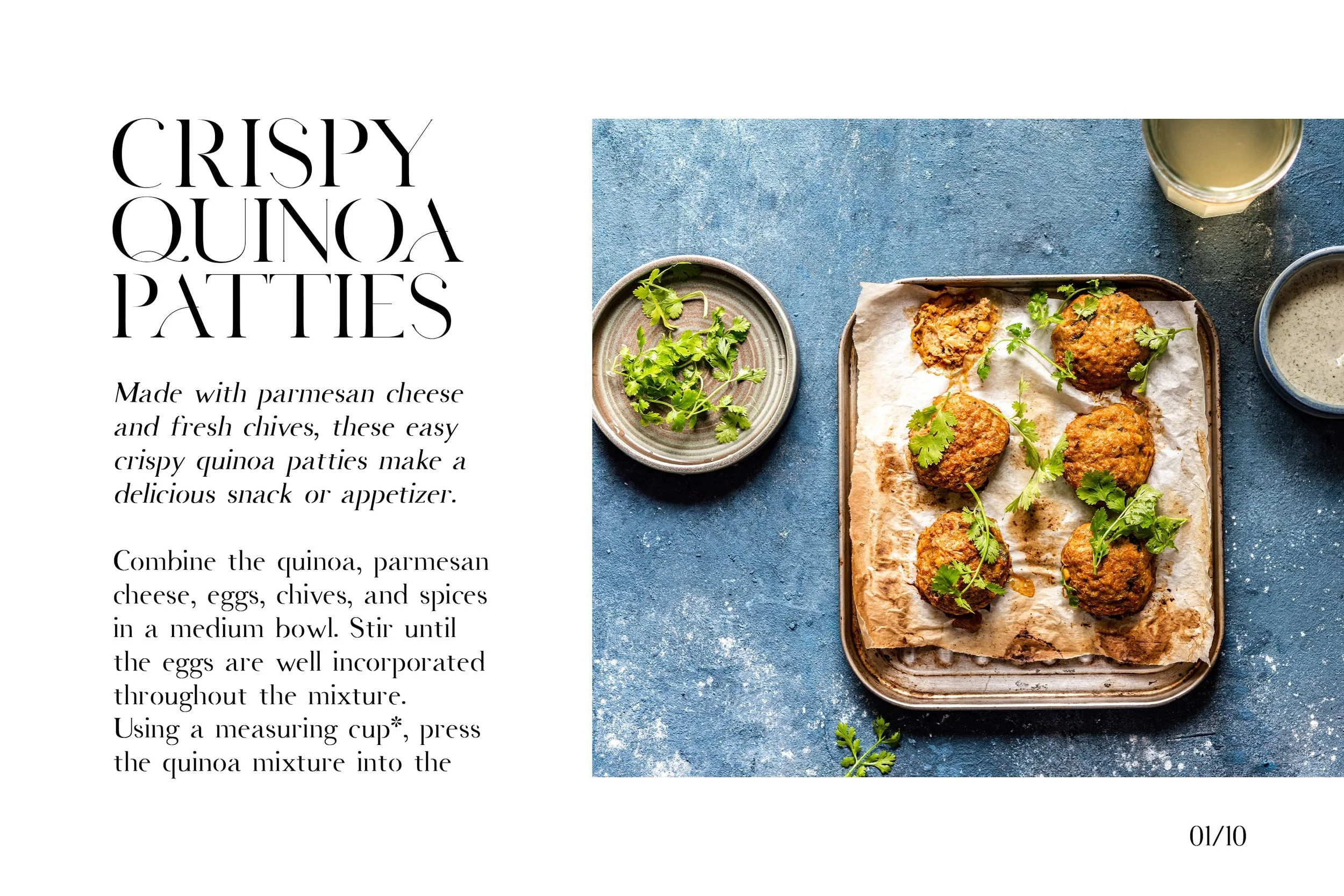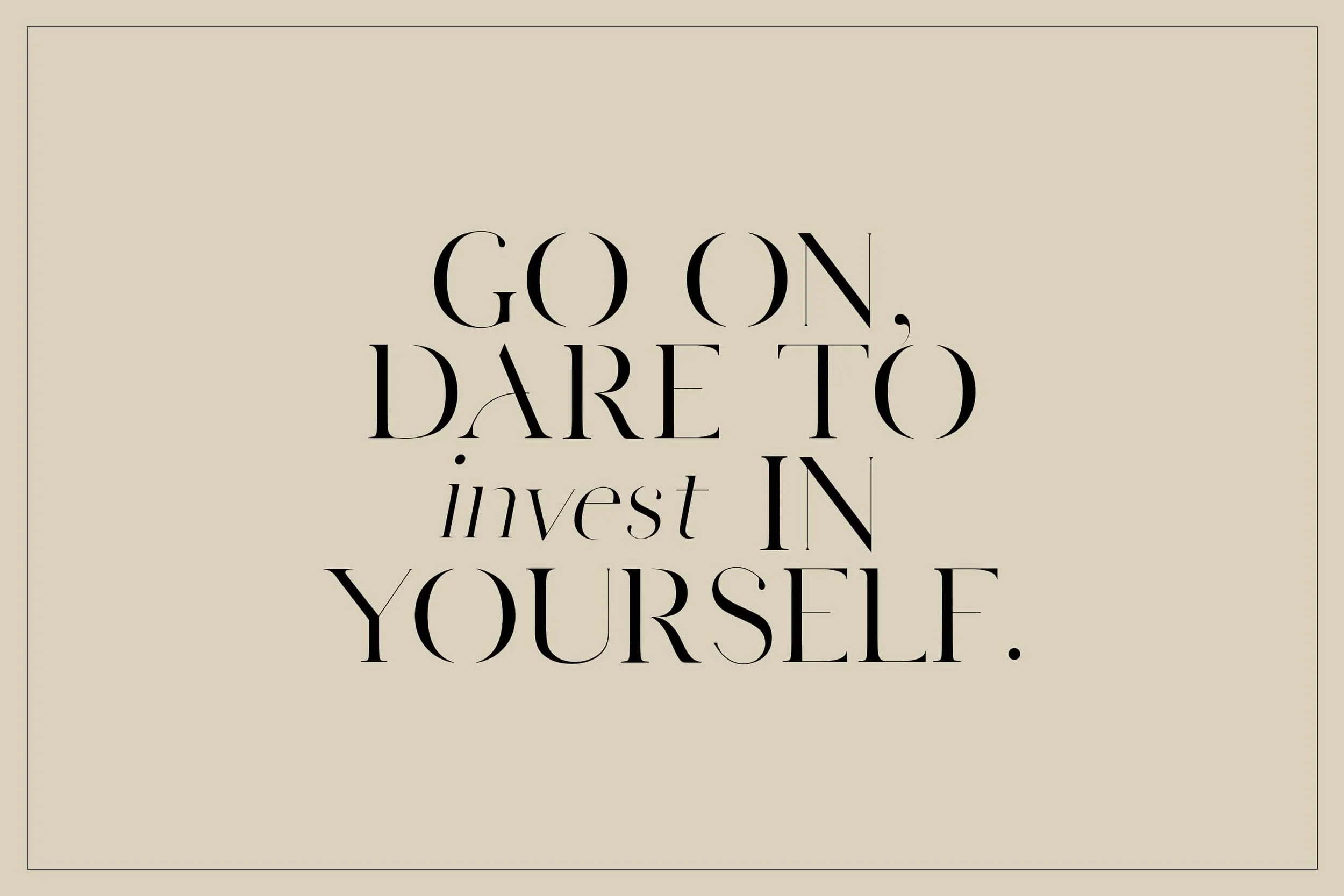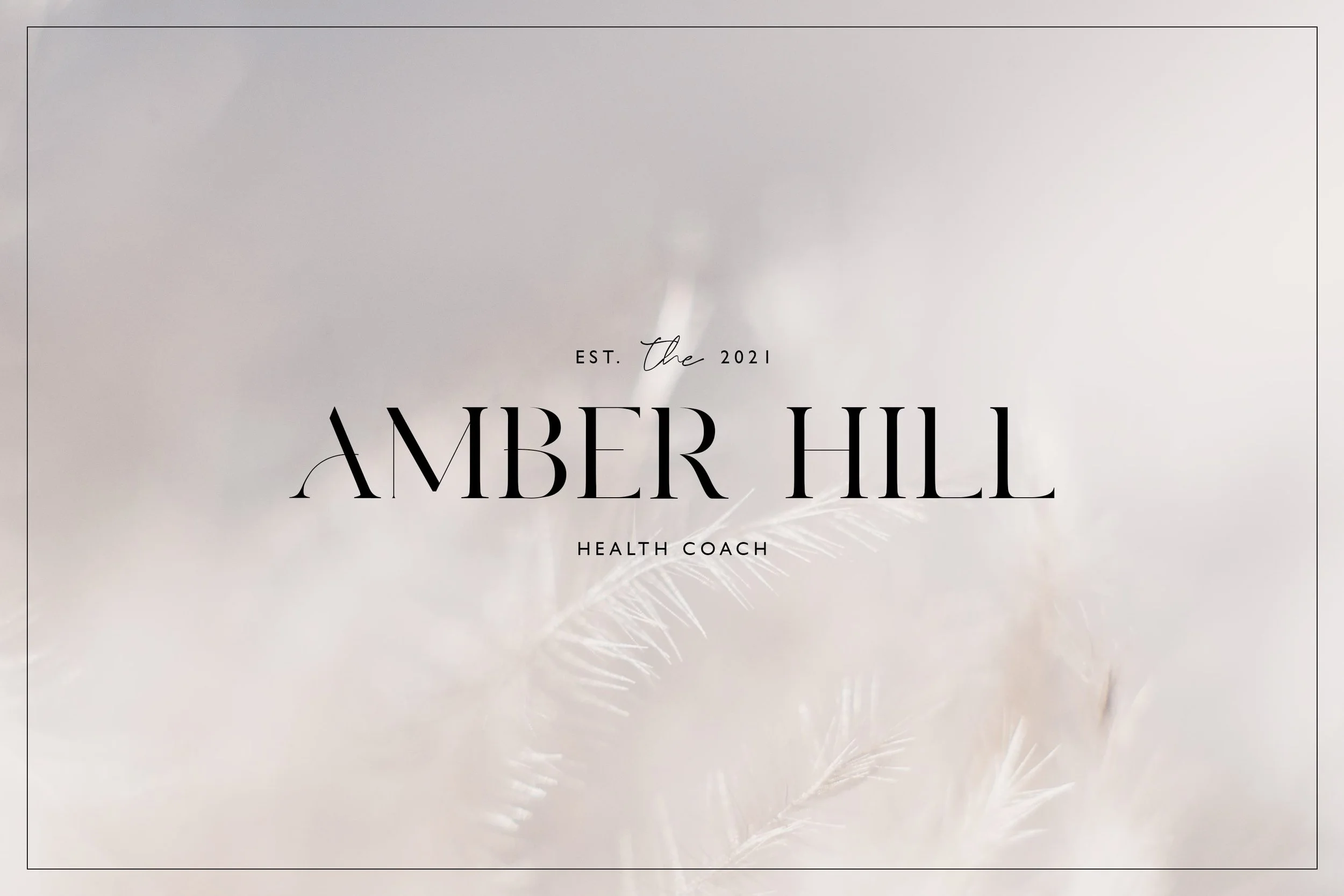
Meet Adore: your go-to serif font for elegance with ease. Its feminine grace adds a refined touch to your brand, ensuring your words are as captivating as your style. Perfect for those who love to make a chic, lasting impression.
- Contains: Uppercase and lowercase letters, numerals, punctuation marks
- Features: Multilingual support (English, German, French, Spanish, Italian, Danish, Finnish, Portuguese, Swedish, Norwegian, Dutch, Indonesian, Luxembourgish, Icelandic, Cornish, Hungarian, Filipino, Romansh, Slovenian, Estonian, Polish, Turkish)